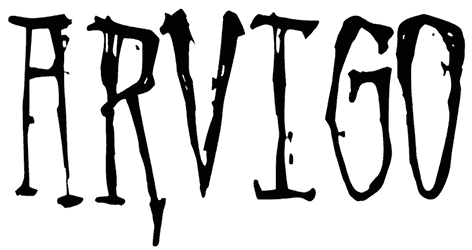
Arvigo Font
Are you looking for a dark and alarming mood to thrill your viewers? Here you go, Arvigo as a horror font is ready to do it. This fancy font is hand drawn and has faded letters, but it doesn’t support lowercase.
To show a sinister vibe, you can add this scary face to your designs like posters, horror titles, novels, and many others the same and be sure, Arvigo will make them shocking.